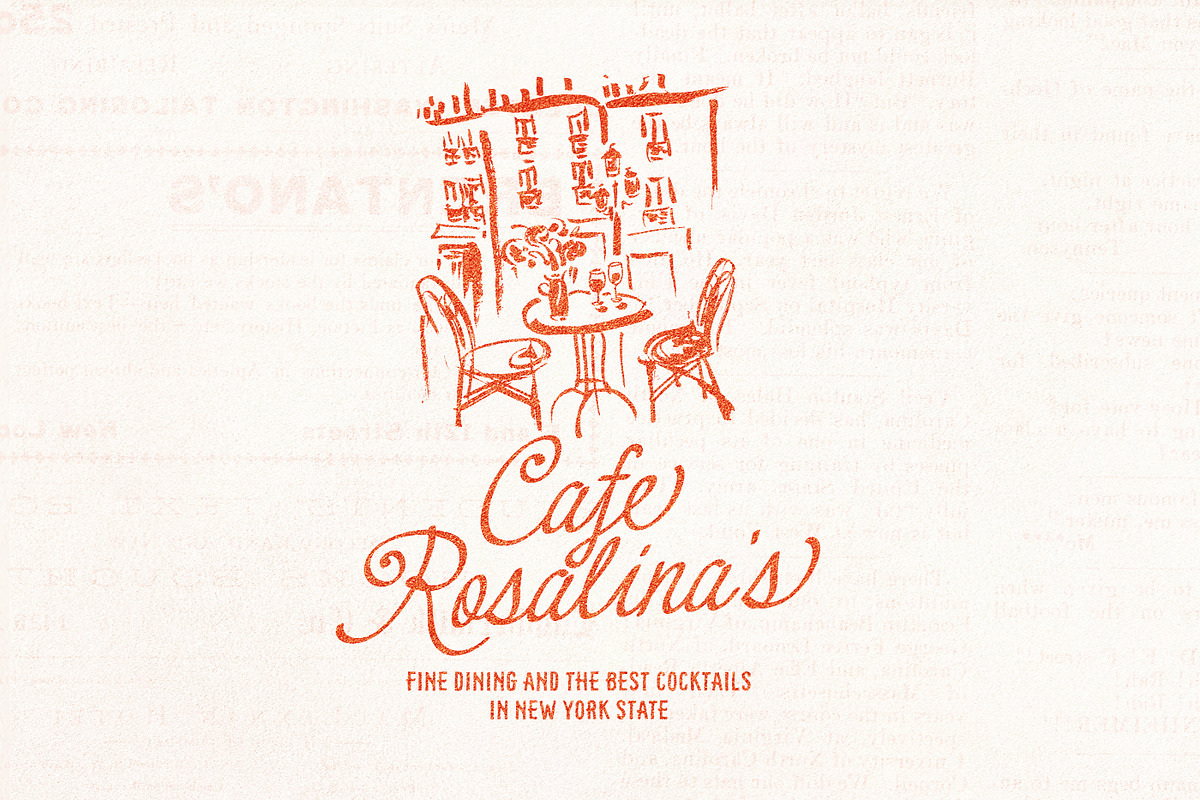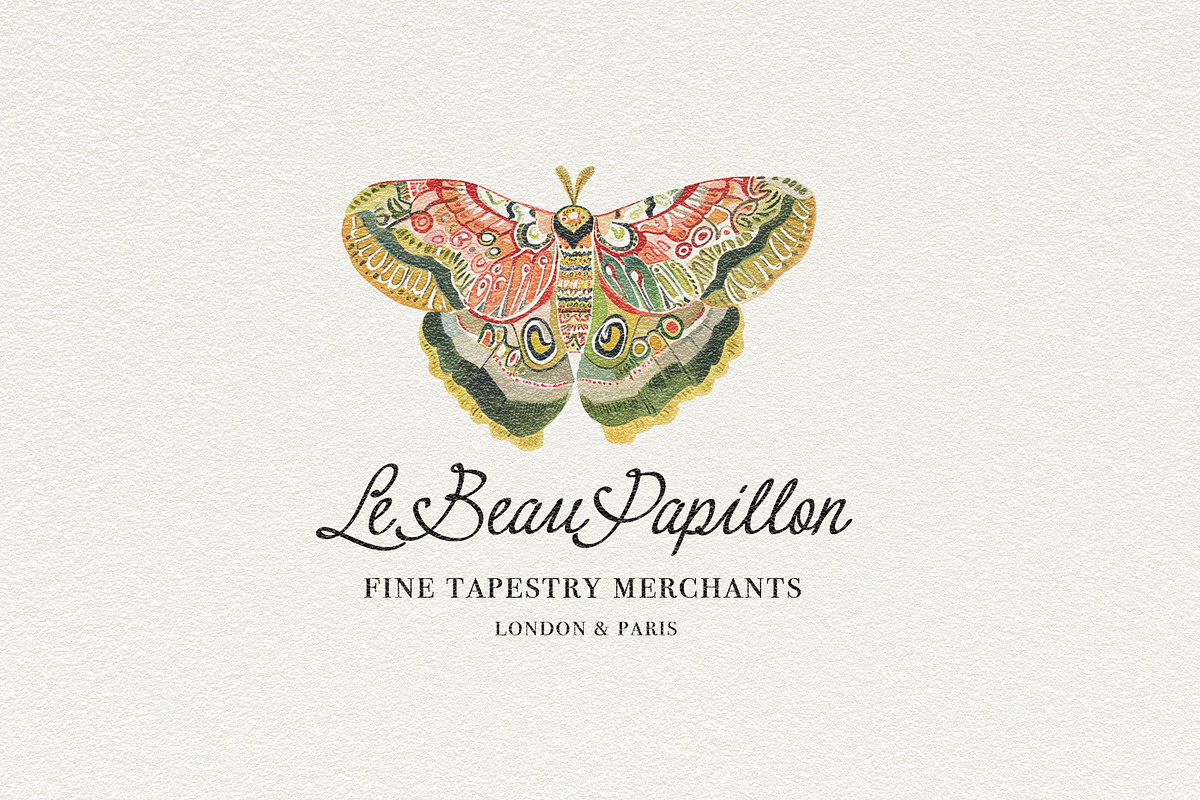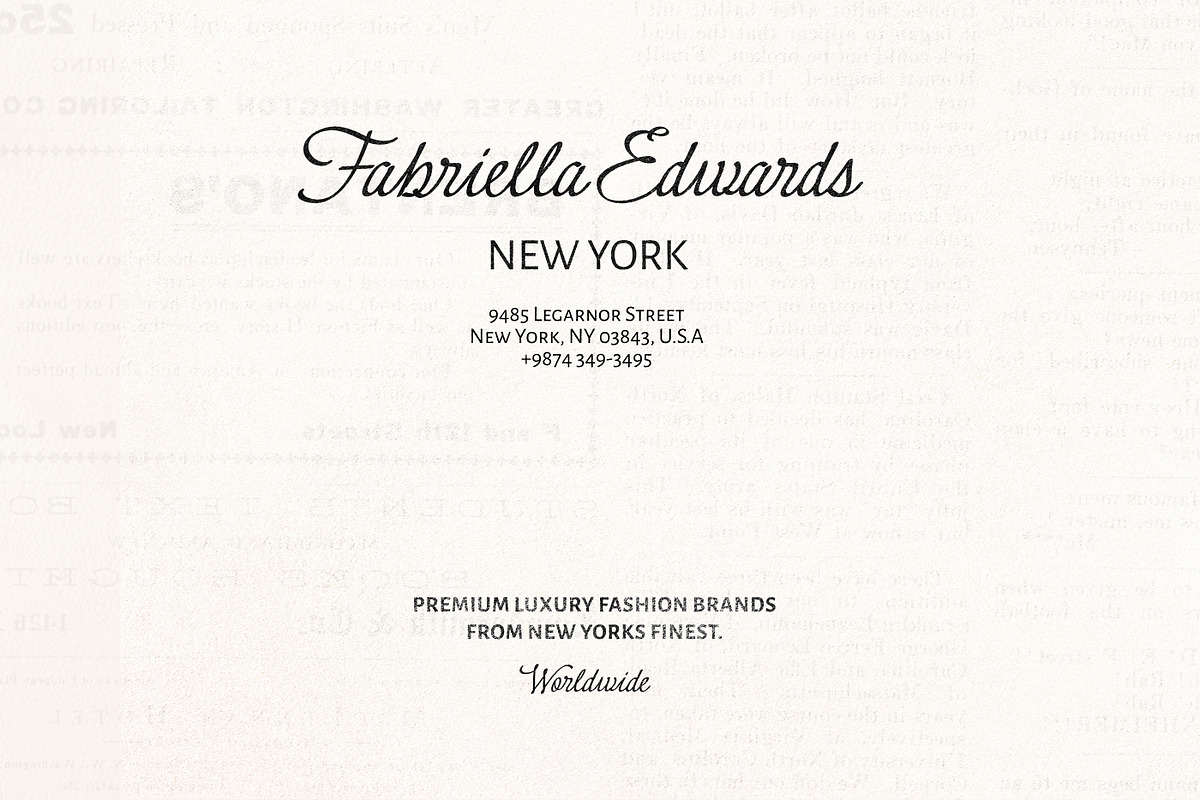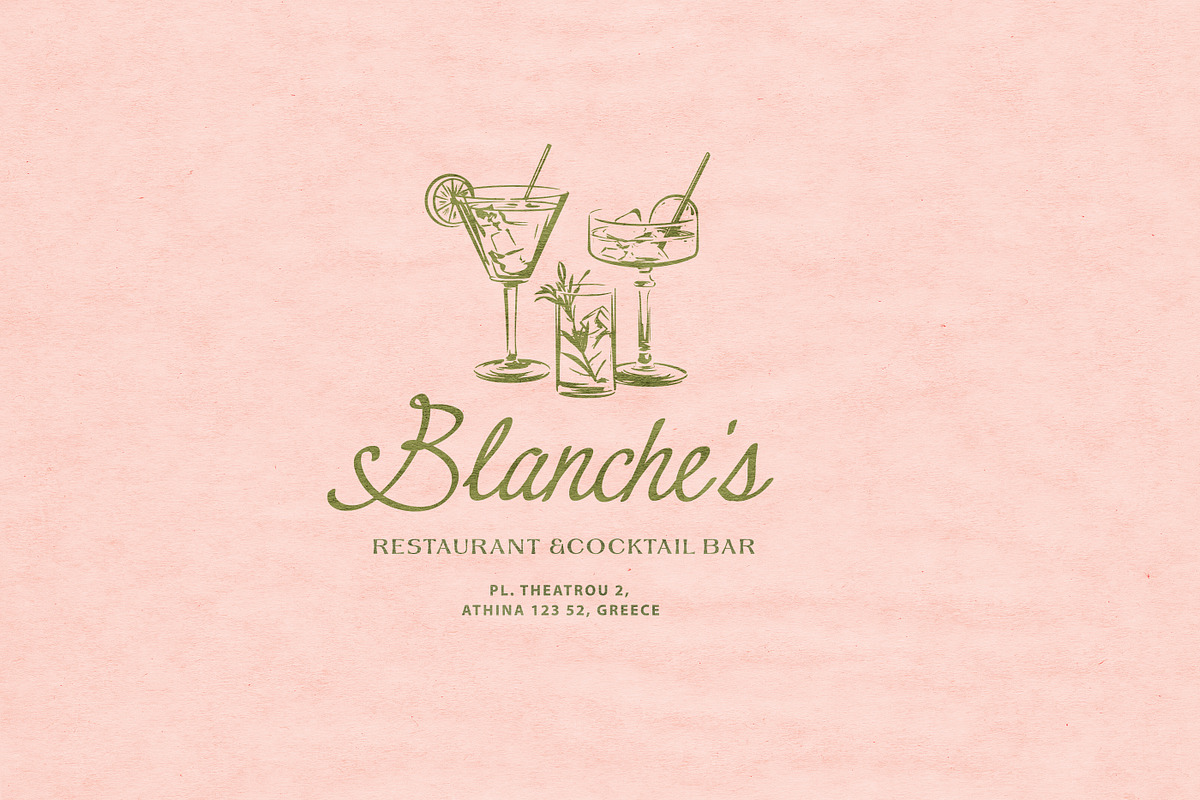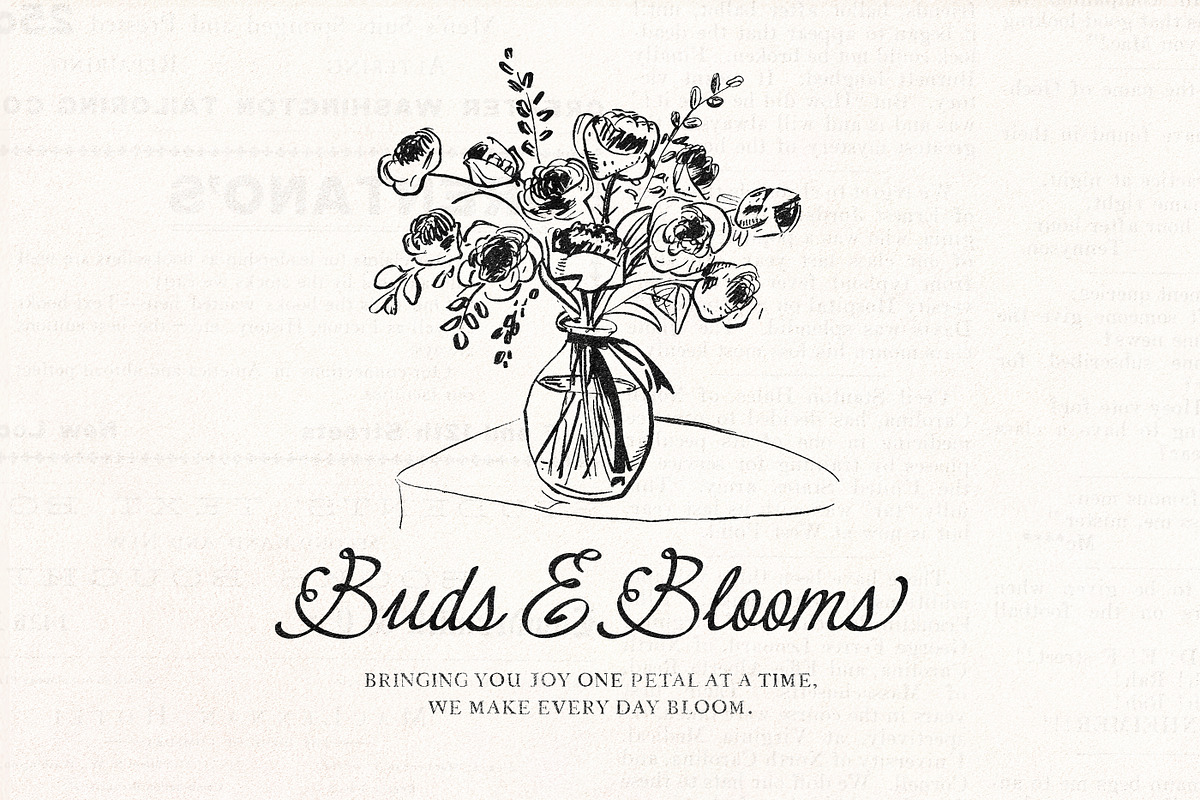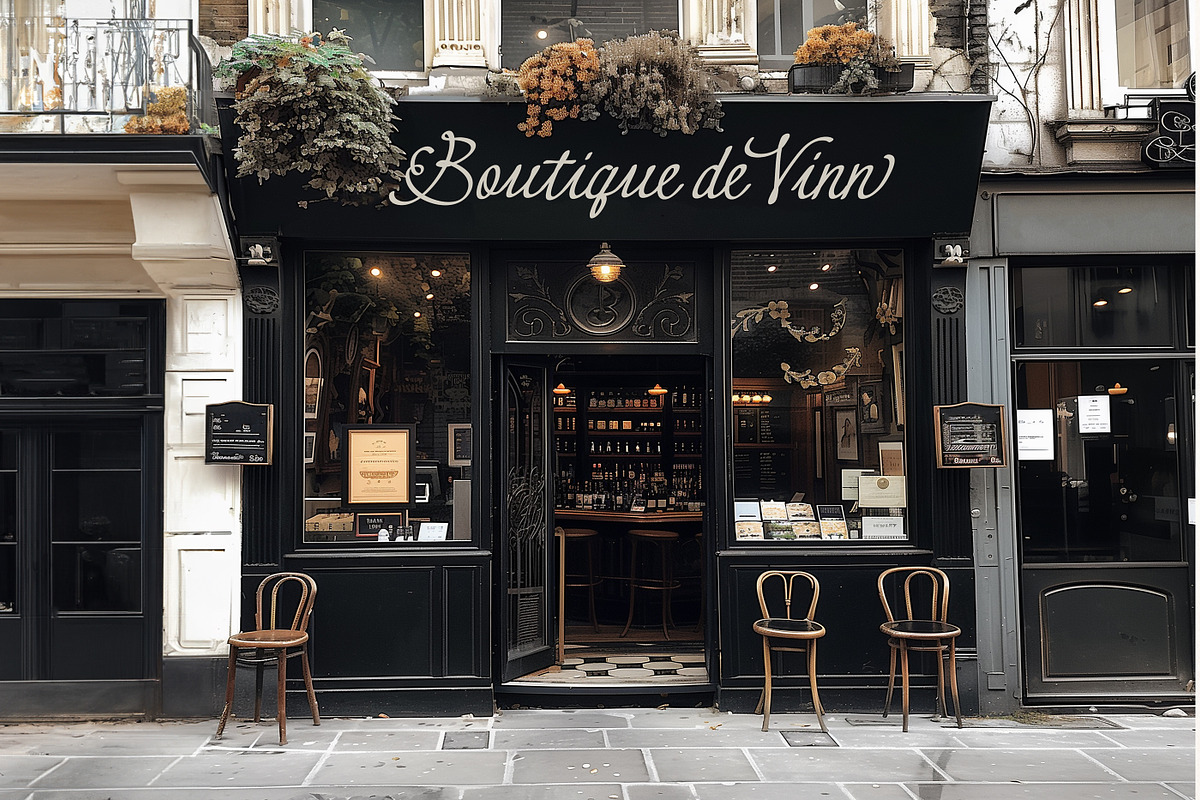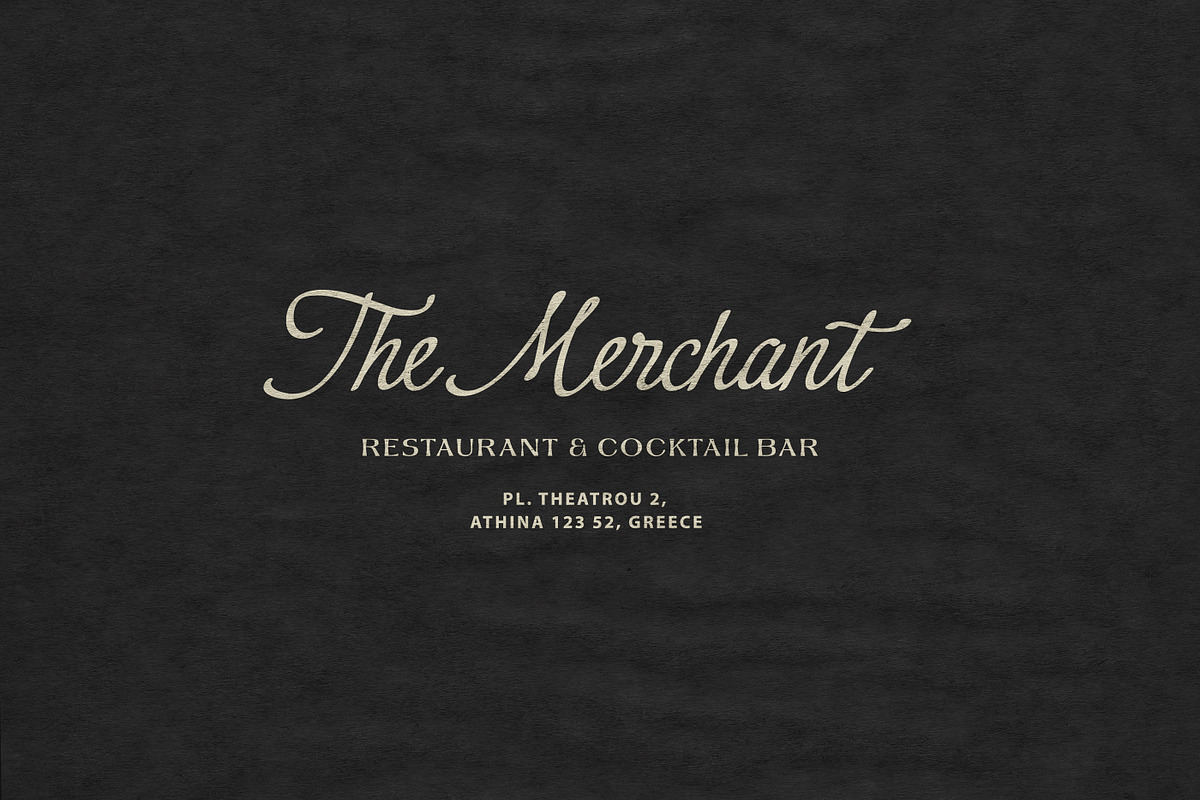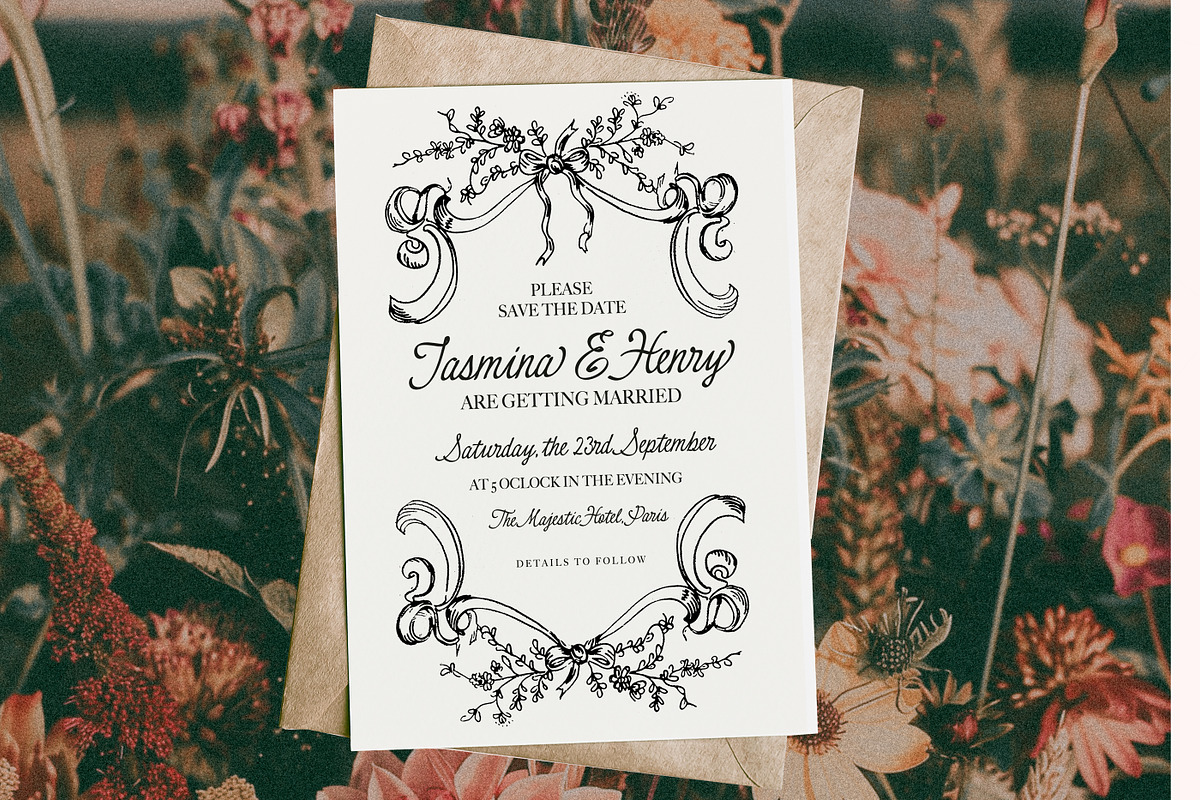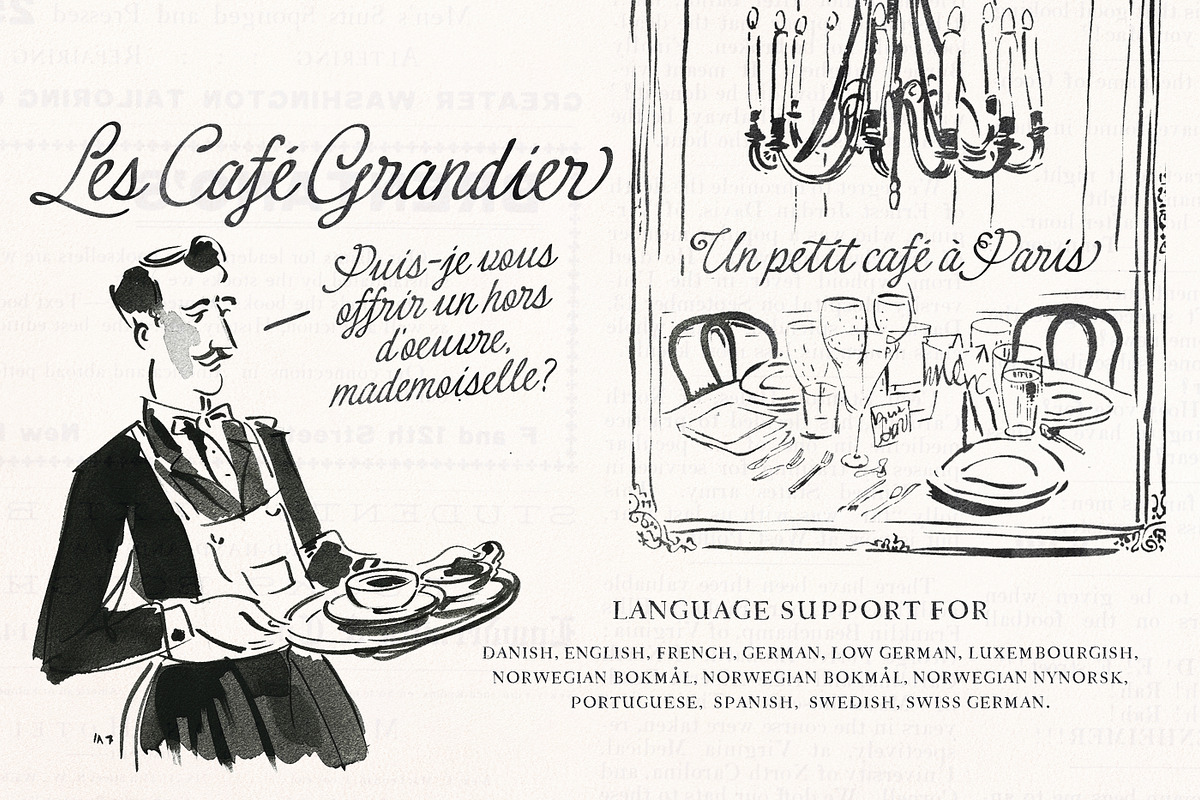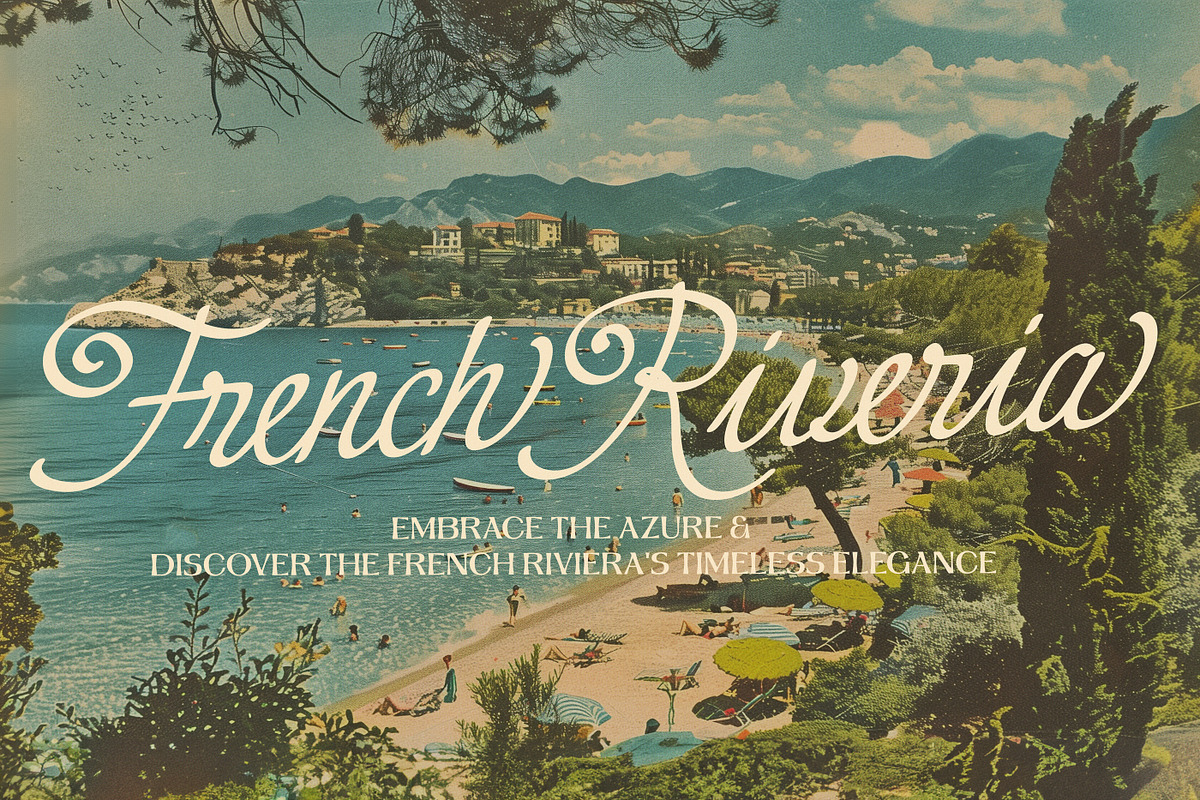
Le French Baguette Script
Say hello to Le French Baguette!
A delightfully chic and light-hearted freshly-quilled script!
Whether you're throwing a shindig, crafting up some bespoke stationery, or just want to make your blog look effortlessly cool, " Le French Baguette " is your go-to for that authentic, vintage, just-off-the-writing-desk vibe.
Every letter has been lovingly penned as if with a real quill.
It's not your cookie-cutter perfect script... it's got those subtle wobbles and variations that make you think, "Hey, did someone just handwrite this?"
Each Uppercase letter has an Alternate 'fancier' letter (Turn on your Opentype features, or copy and paste them from fontbook for apps like Canva), and each lowercase letter has a mini end swash variant too :)
Language support covered : Danish, English, French, German, Low German, Luxembourgish, Norwegian Bokmål, Norwegian Nynorsk, Portuguese, Spanish, Swedish, Swiss German.